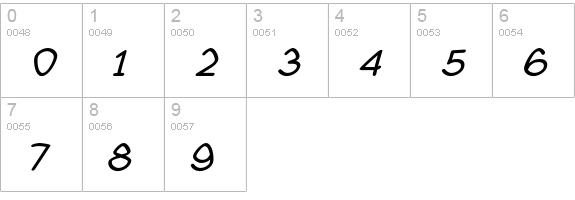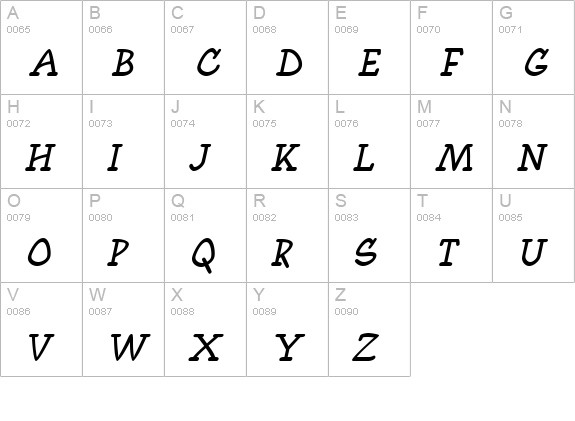
SundsvallBoldItalic Font Details
SundsvallBoldItalic is a striking and elegant font that exudes sophistication and modernity. Its bold and italicized design adds a touch of flair to any project, making it perfect for creating eye-catching headlines, titles, and logos. The sleek curves and sharp edges of this font give it a contemporary and stylish look that is sure to captivate viewers. What's even better is that SundsvallBoldItalic is completely free to download at FontsMarket.com. This means that you can access this stunning font without any cost, making it a fantastic option for designers, creatives, and anyone looking to add a touch of elegance to their work. Whether you're designing a website, creating marketing materials, or crafting a personal project, SundsvallBoldItalic is the perfect choice for adding a touch of sophistication and style. Download it now and elevate your designs with this exquisite typeface.